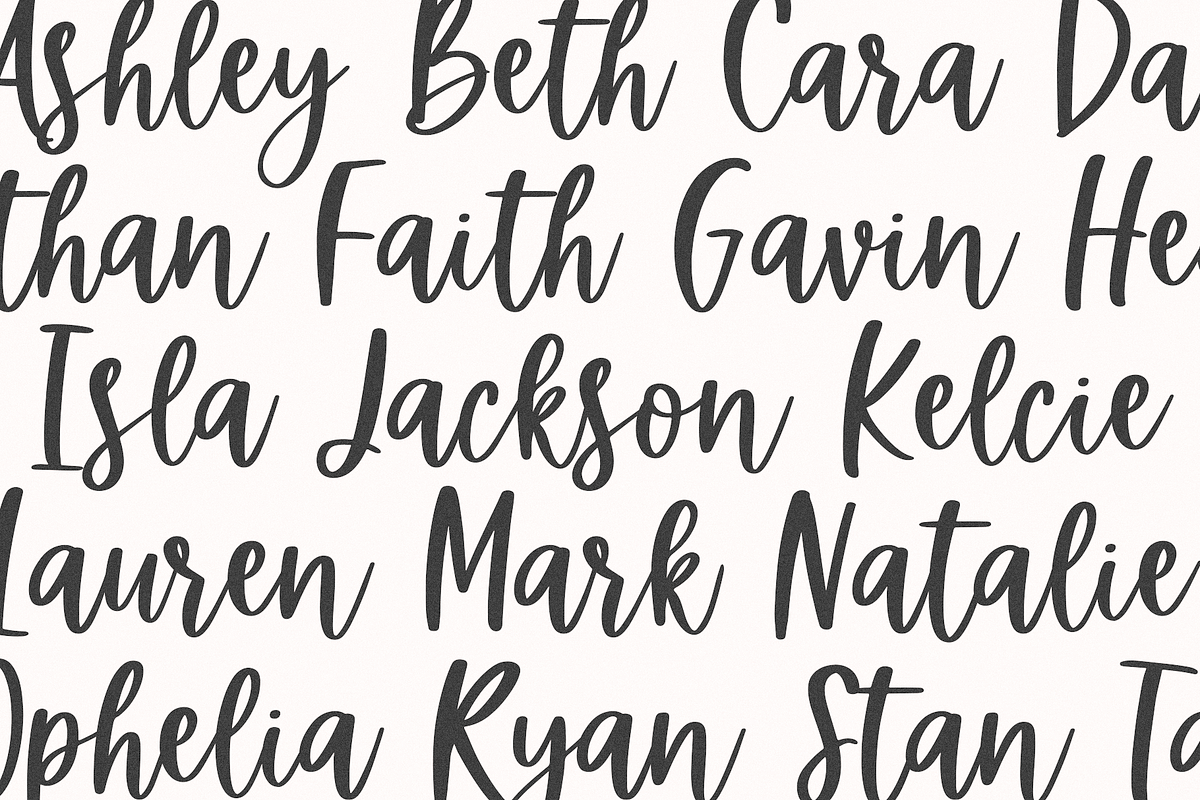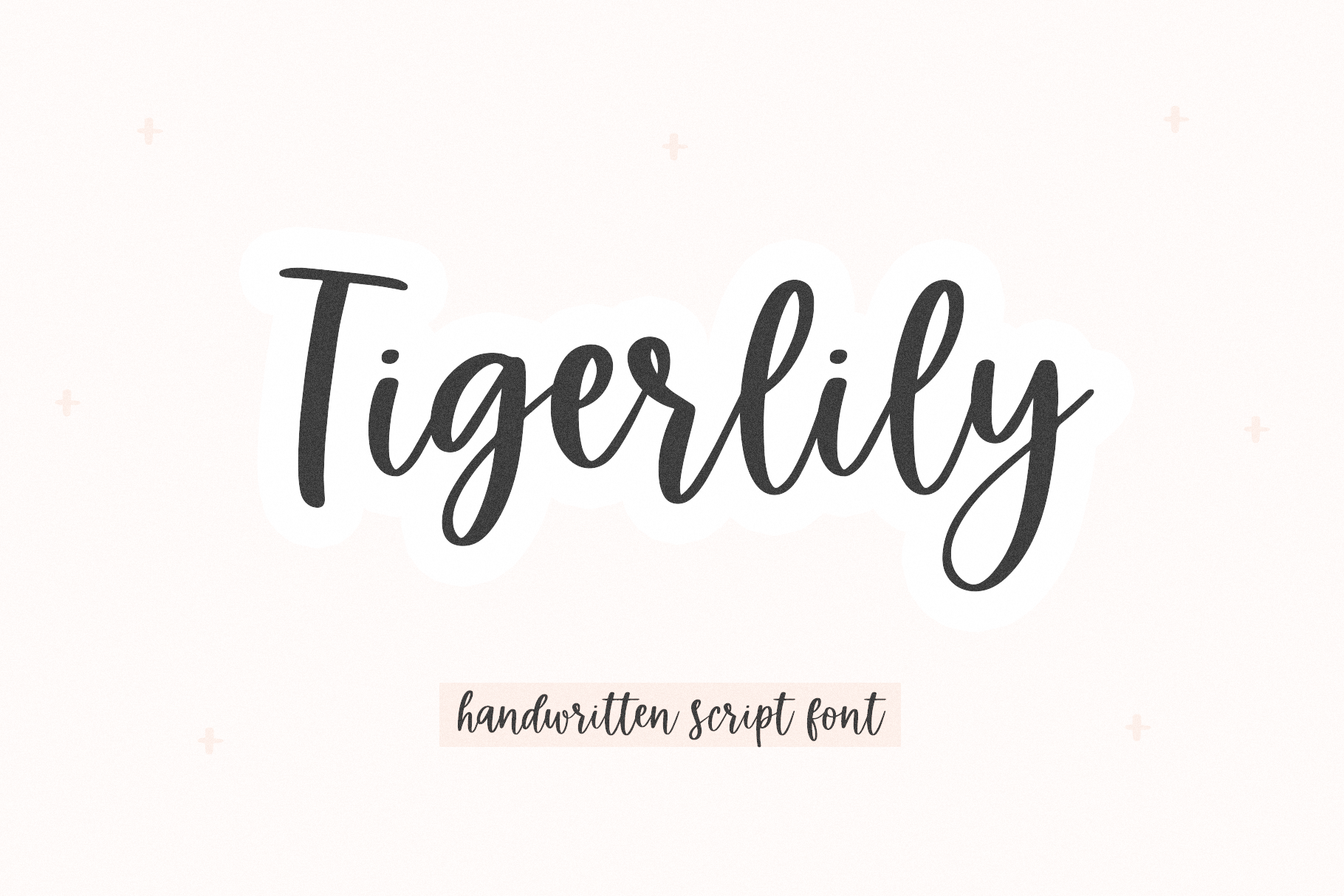
Tigerlily | Handwritten Script Font
Tigerlily is a bold handwritten script font.
This font is perfect for branding, logos, signs, home decor, shirts, svg designs, cricut projects, social media, instagram posts, stories and more!